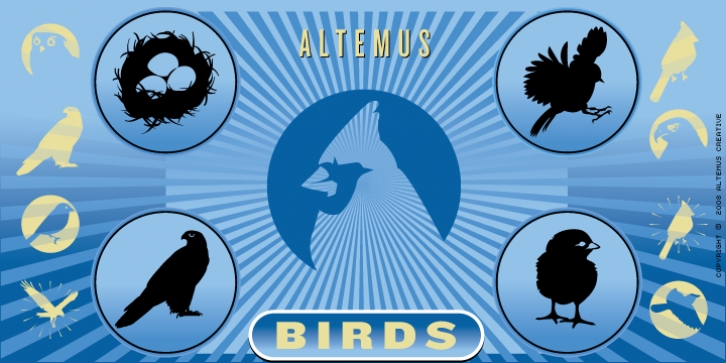
Birds is a collection of 174 raptors, woodland birds, farm birds, designs.
Birds Two is a collection of 174 wetland birds, tropical birds, and arctic bird designs.